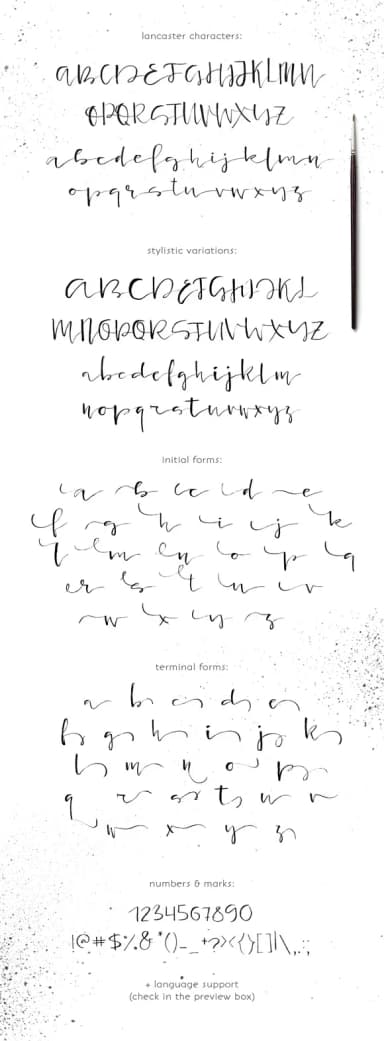
Lancaster Font by Favete Art is a flowing handwritten script that combines organic warmth with refined letterforms for designers seeking authentic personality in their typography. The typeface captures the essence of thoughtful penmanship through carefully balanced curves and consistent spacing, making it equally powerful whether anchoring bold headlines or adorning delicate decorative text across various mediums.
This script excels in applications where artisanal character and hand-crafted appeal drive genuine impact. Wedding invitation suites gain immediate romance and sophistication, while Etsy product labels and boutique skincare packaging shine with authentic handcrafted elegance. DIY craft signs benefit from the distinctive personality that mass-produced typefaces simply cannot match, and personalized stationery, small-batch cosmetics branding, and editorial design spreads showcase remarkable versatility. Social media graphics and greeting card layouts round out the diverse range where Lancaster performs beautifully.
Lancaster Font is a script font that shines as a display or heading face. Pair it with a clean sans-serif or serif font for body text β the contrast creates a clear hierarchy while the two styles stay balanced and easy to read.
Lancaster Font
by Favete Art